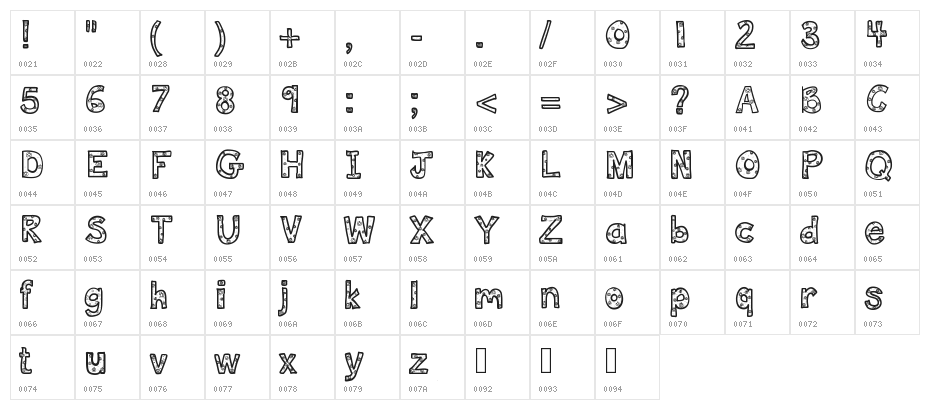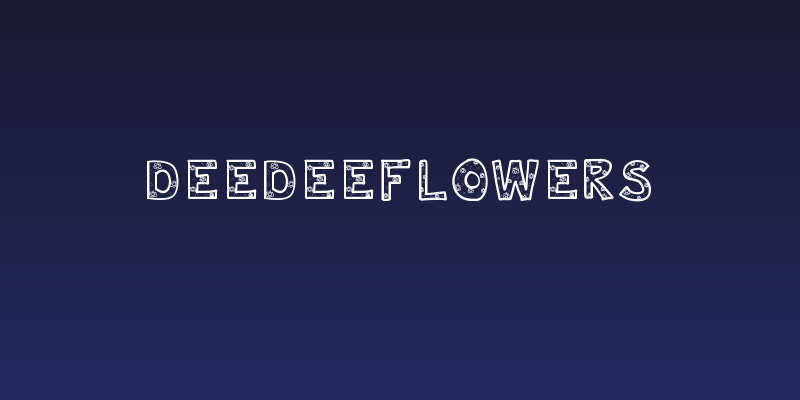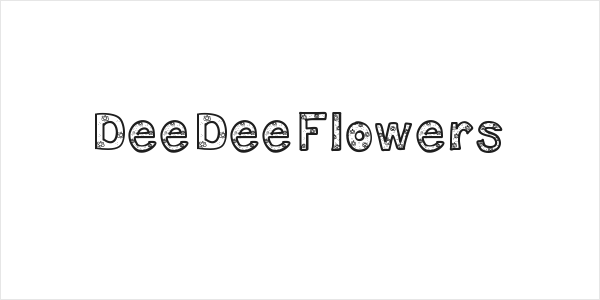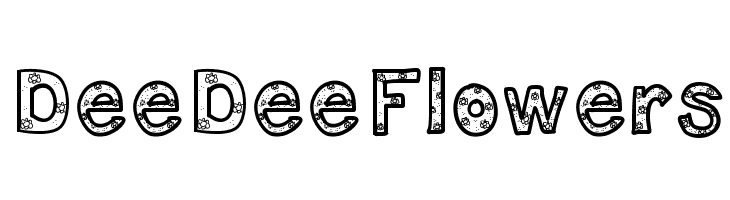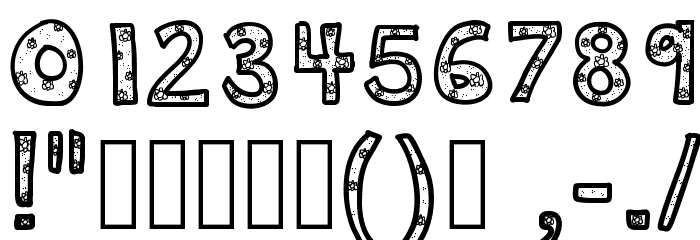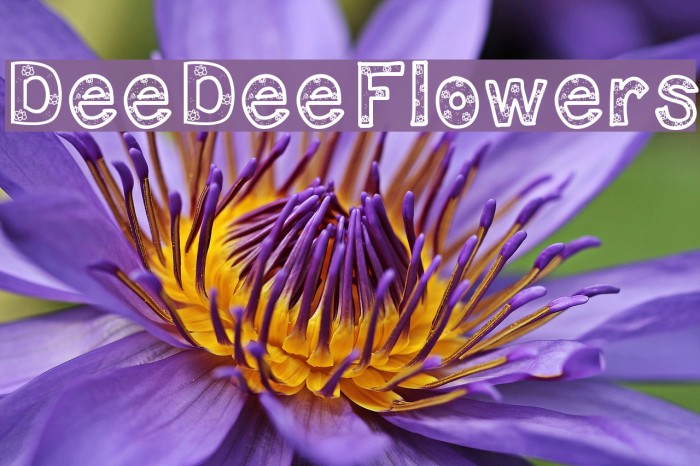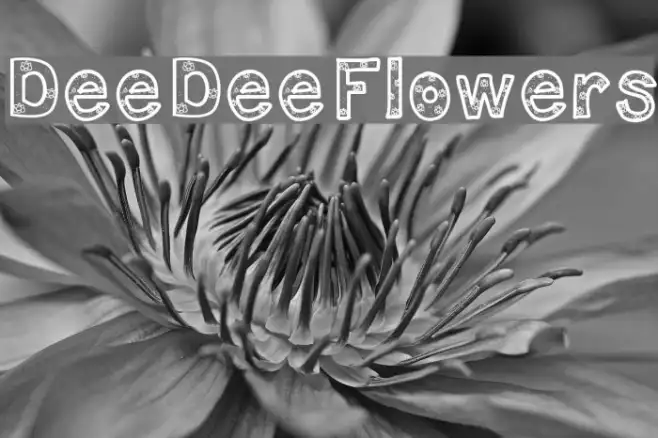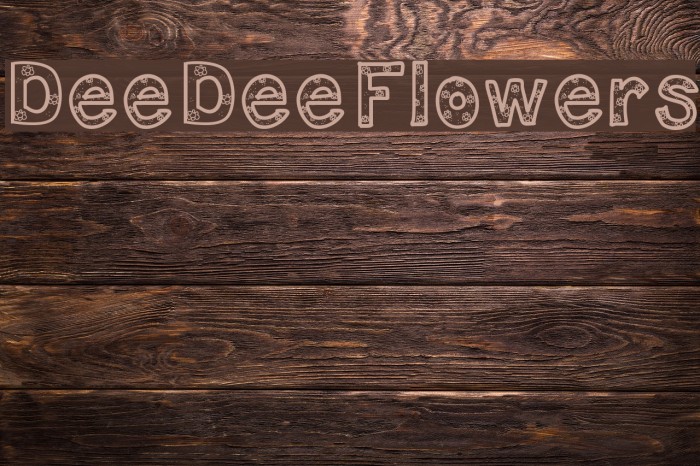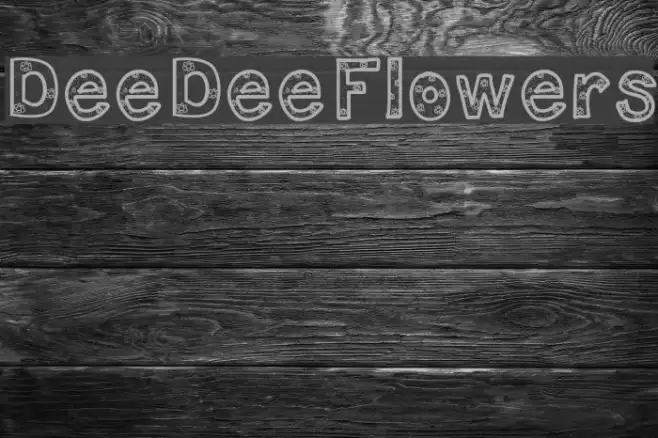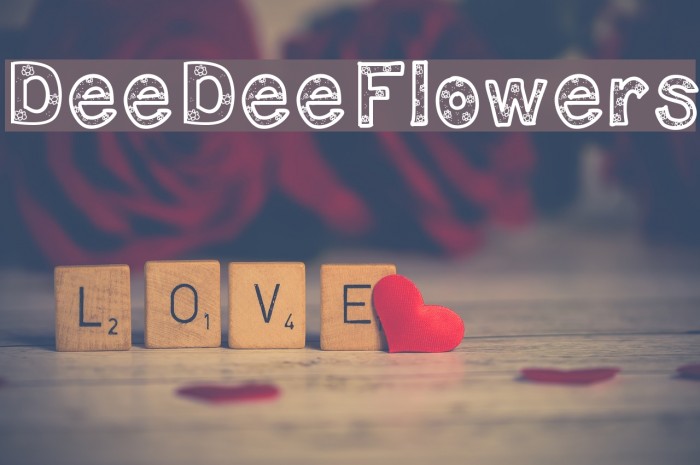
DeeDeeFlowers Font
DeeDeeFlowers Description
This font features a playful and decorative style, characterized by its bold, hand-drawn appearance. Each character is filled with intricate floral patterns, giving it a unique and whimsical look. The letters are uppercase and lowercase, with numbers and a selection of special characters. The overall design is eye-catching and artistic, making it ideal for creative projects. The font's decorative nature suggests a fun and informal tone, perfect for designs that require a touch of creativity and flair.
| Proposed Projects | Ideal for greeting cards, children's book covers, playful posters, and creative branding projects. |